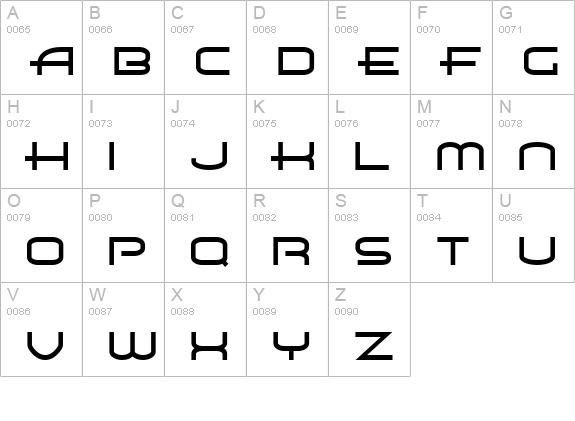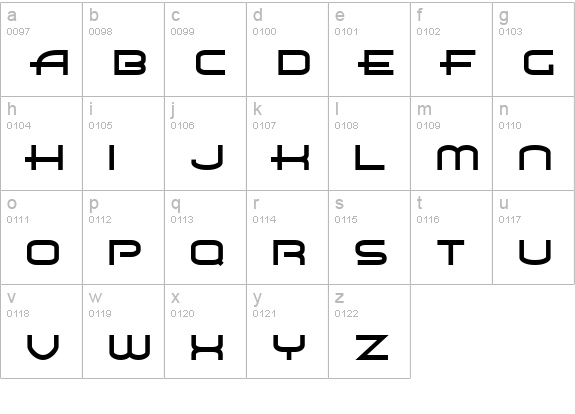
Air Flow BTN Font Details
Air Flow BTN font is a modern and stylish typeface that exudes elegance and sophistication. With its sleek lines and contemporary design, this font is perfect for a wide range of design projects, from branding to advertising to web design. The clean and crisp letterforms make Air Flow BTN font a versatile choice for any creative endeavor. One of the best things about Air Flow BTN font is that it is available for free download at FontsMarket.com. This means that you can easily access this high-quality font without any cost, making it a fantastic option for designers on a budget. With its professional look and easy readability, Air Flow BTN font is sure to elevate your projects and help you stand out from the crowd. Download it today and add a touch of sophistication to your designs!